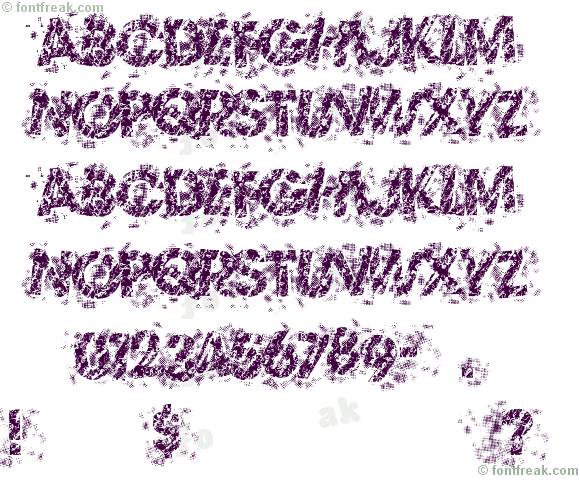
The Thrill Of The Kill
About The Thrill Of The Kill
The Thrill Of The Kill is a captivating display typeface designed by Andrew McCluskey in 2014. This unique font falls into the decorative category, showcasing an edgy and dynamic style that instantly grabs attention. Its visual characteristics include a bold stroke weight combined with an irregular texture, creating a sense of movement and energy. The contrast is striking, with varying line thickness that adds depth and interest to each letterform. The spacing is carefully considered, ensuring that the letters remain legible while still conveying a strong visual impact.
This font is ideal for a variety of creative applications. It can elevate movie posters, providing an intense and dramatic flair that aligns with action or thriller genres. Additionally, The Thrill Of The Kill is perfect for branding small businesses in the entertainment or extreme sports sectors, where a bold identity is crucial. Wedding invitations that aim for a modern, edgy aesthetic can also benefit from this typeface, adding a unique touch that sets the tone for a memorable event. Restaurant menus, particularly for establishments with a contemporary or avant-garde theme, will find this font enhances their visual appeal, drawing diners in with its striking presence.
Targeting graphic designers, small business owners, and content creators, The Thrill Of The Kill font free download offers an accessible way to incorporate a distinct and memorable typeface into various projects. Its standout features combine artistry with functionality, making it a versatile choice for any creative endeavor. The dramatic flair and unique texture of this font ensure that it will leave a lasting impression, setting your work apart in a visually crowded landscape.